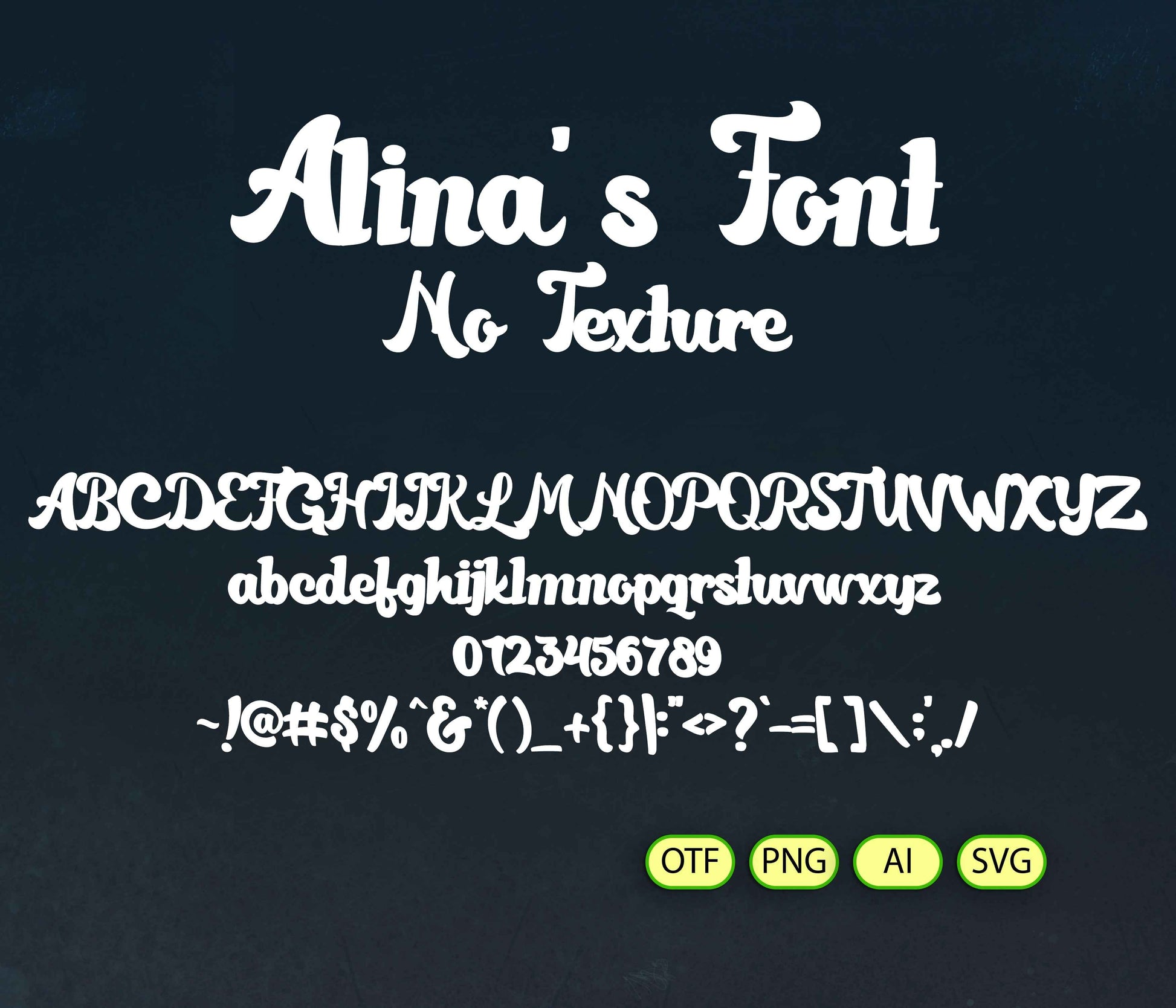
Classy Elegance Font
Step into the world of sophisticated refinement with our Classy Elegance font, capturing the essence of timeless grace and modern luxury. Perfect for wedding planners, high-end designers, event coordinators, and digital artists, this refined font brings distinguished elegance to your projects. Create upscale invitations, luxury branding, or premium content with the sophisticated allure of classic style.
Our Classy Elegance font features flowing, sophisticated lines and refined characters reflecting the graceful nature of luxury design. Ideal for:
- Upscale Events: Design elegant invitations, place cards, and sophisticated signage for galas, weddings, and formal occasions.
- Luxury Branding: Perfect for high-end logos, premium packaging, and exclusive product labels that demand refinement.
- Digital Presence: Create distinguished websites, elegant social media content, and refined digital presentations with pristine typography.
- Premium Materials: Ideal for business cards, letterheads, and corporate communications that require a touch of class.
- Exclusive Projects: Perfect for wine labels, luxury retail displays, or any design requiring sophisticated elegance.
Our font pays tribute to timeless sophistication, empowering your designs with its refined and elegant spirit. Whether crafting luxury invitations, designing premium merchandise, or adding a touch of class to special projects, this clean-lined font communicates sophisticated grace with professional precision. Ready to elevate your designs? This non-textured font is your key to polished, distinguished design.